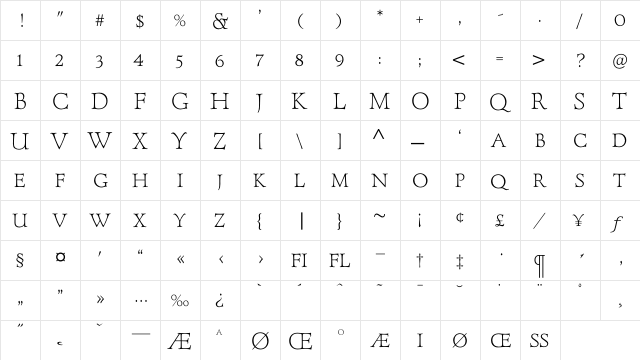
ForumTitlingLight Regular
Design Context for ForumTitlingLight Typeface
ForumTitlingLight is a composed and adaptable typeface that performs quietly and consistently across a wide range of design contexts. The delicate stroke weight brings airiness and refinement to layouts.
Pro Tip: Pair ForumTitlingLight with a font of contrasting weight or personality to build a more expressive typographic hierarchy.